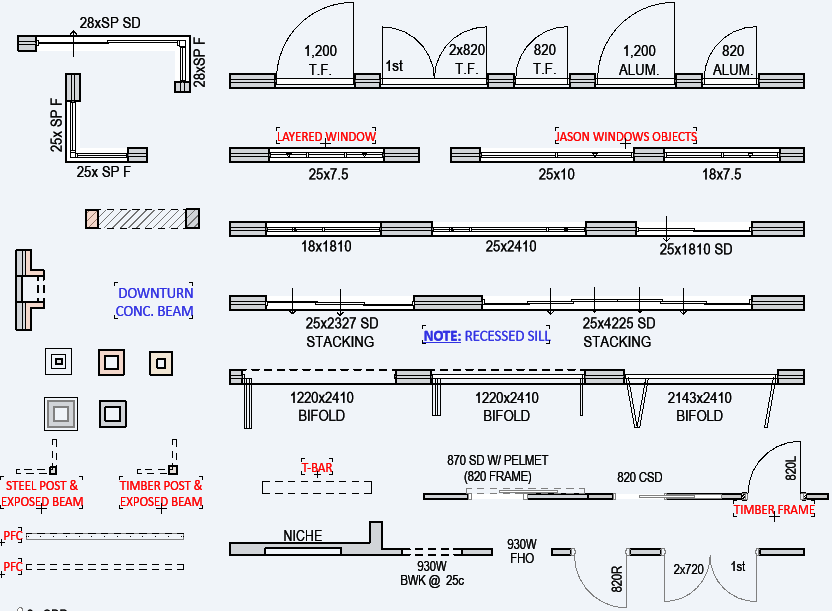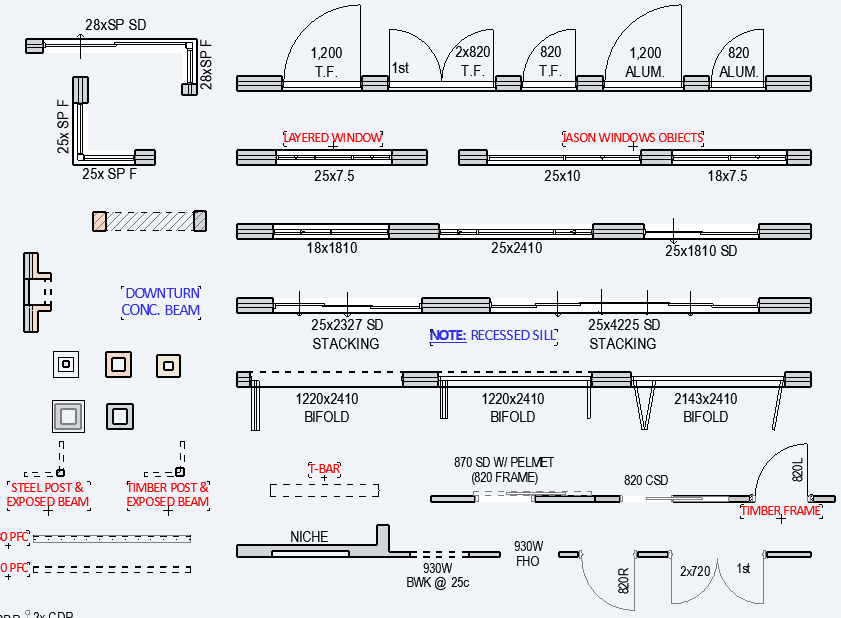
I am currently in the process of migrating my template into AC26 and the first thing I noticed was issues with my font and the way it is displayed on the screen.
It actually hurts my eyes to look at as the lines and text appear to be thicker / fuzzy when zoomed out. The text is also displaying a lot differently, sort of like it's a foreign font?
To me, the lines and text when viewed in 24 were a lot 'cleaner' and more 'crisp' however this is not the case in the 26. Is there a setting or anything I can adjust?
There was an interesting post from @Bernhard Binder on the GDC forum.
To be precise: Fonts look ugly in AC26 and depending on the font you use the position is offset and size varies compared to AC25. It's an Windows only problem. There is a workaround:
Here is an example of the offset. The green fills indicate the boundary of fonts in AC25, file was opened in AC26. As you can see font Arial is nearly the same, ISOCP is offset nearly by the half of it's height.